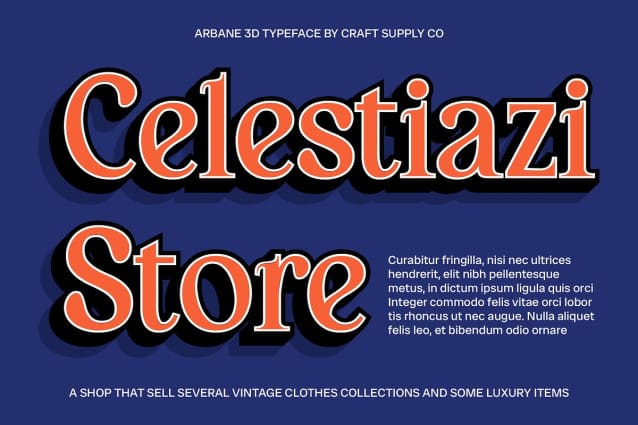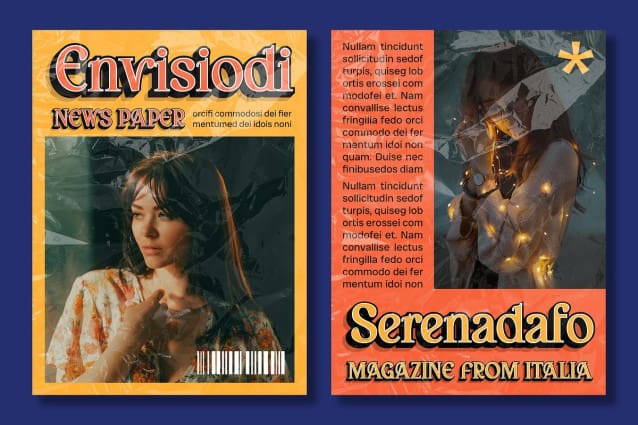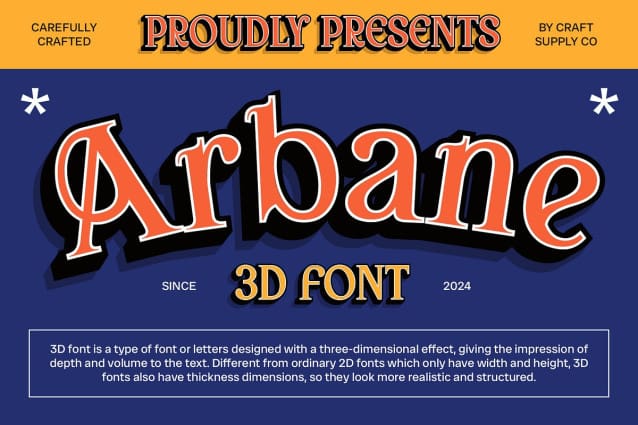
Arbane 3D Font
Arbane 3D features a classic Art Nouveau serif design, renowned for its smooth curves and intricate decorative elements. This elegant font captures the timeless beauty and artistic flair of the Art Nouveau movement, adding a touch of sophistication to any project.
Striking 3D Effect for Enhanced Visual Depth The 3D effect in Arbane introduces an extra layer of visual depth, elevating the font’s classic Art Nouveau features with a modern twist. This dynamic element creates a captivating, multidimensional appearance that enhances the font’s elegance and artistic quality.
Perfect for Sophisticated and Artistic Designs Ideal for invitations, branding, and artwork, Arbane 3D brings a sophisticated and stylish touch to a range of designs. Its blend of historical elegance with contemporary 3D depth makes it a striking choice for projects that aim to convey both timeless beauty and modern innovation.
Versatile for Classic and Modern Aesthetics Arbane 3D seamlessly combines the classic charm of Art Nouveau with a modern 3D effect, making it a versatile option for various design needs. Whether used in high-end branding, decorative invitations, or artistic posters, it provides a unique and refined look that stands out with both elegance and creativity.